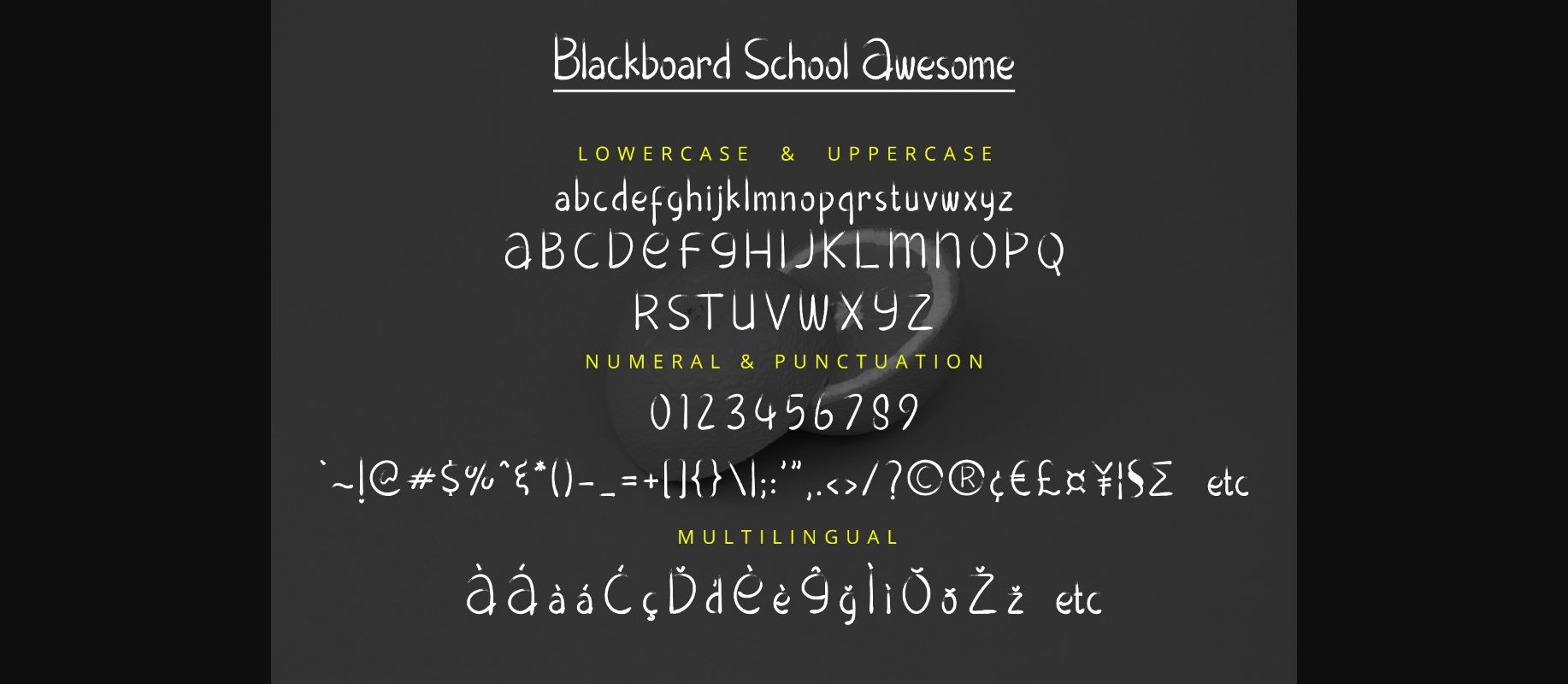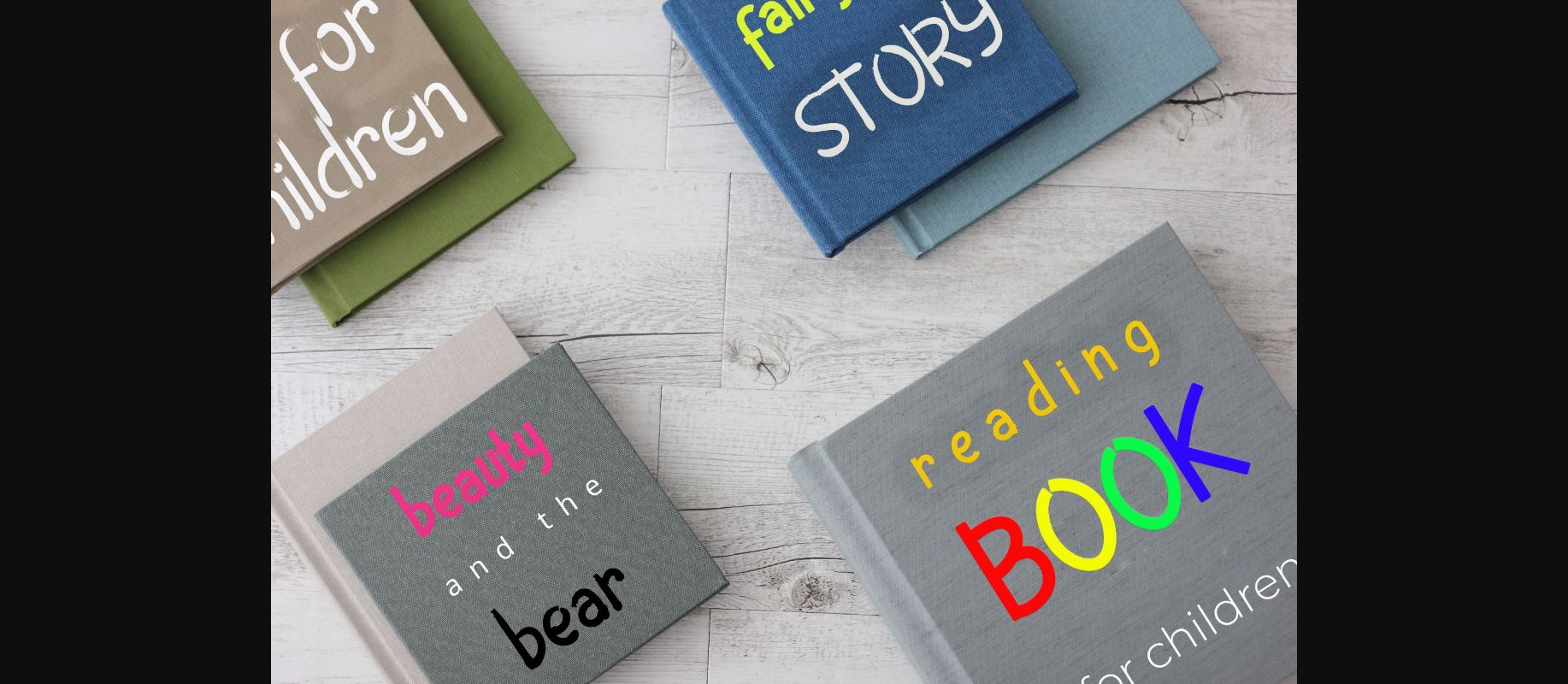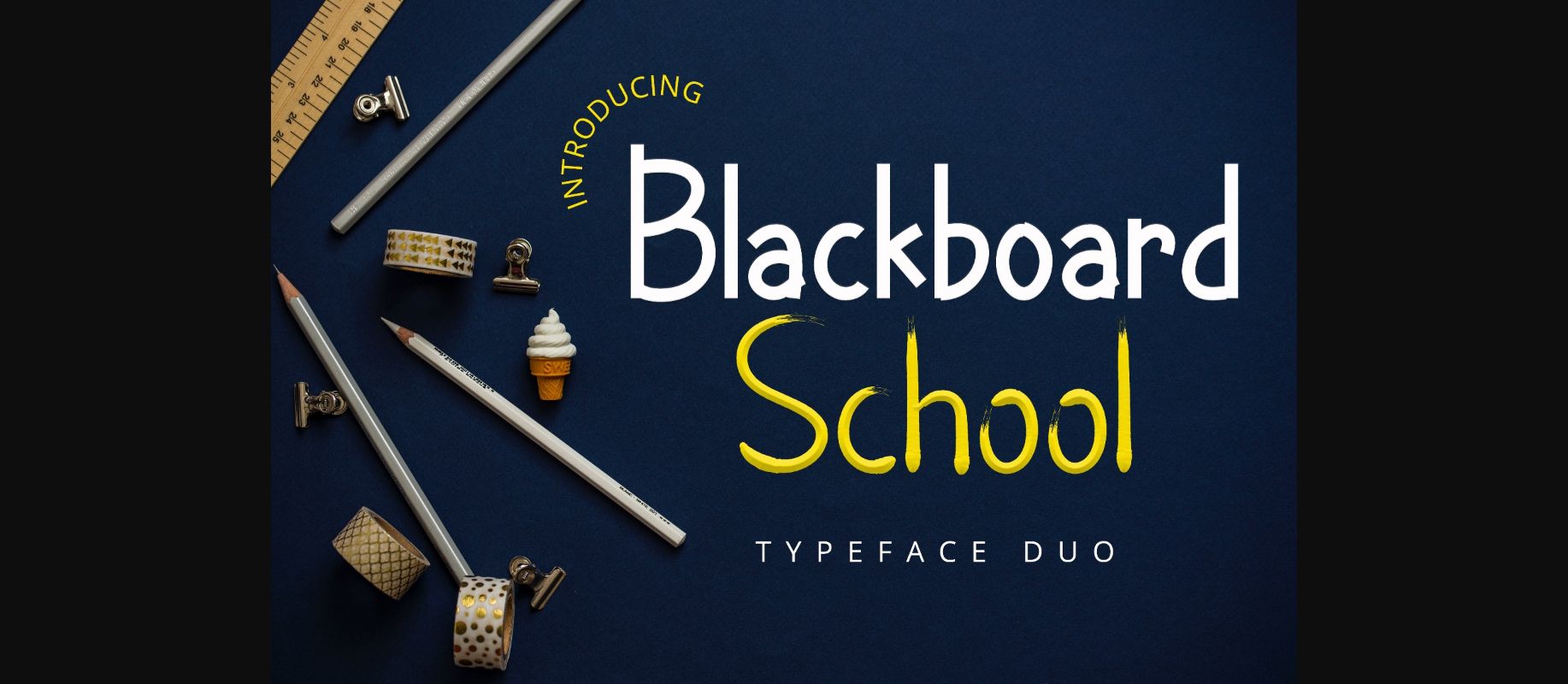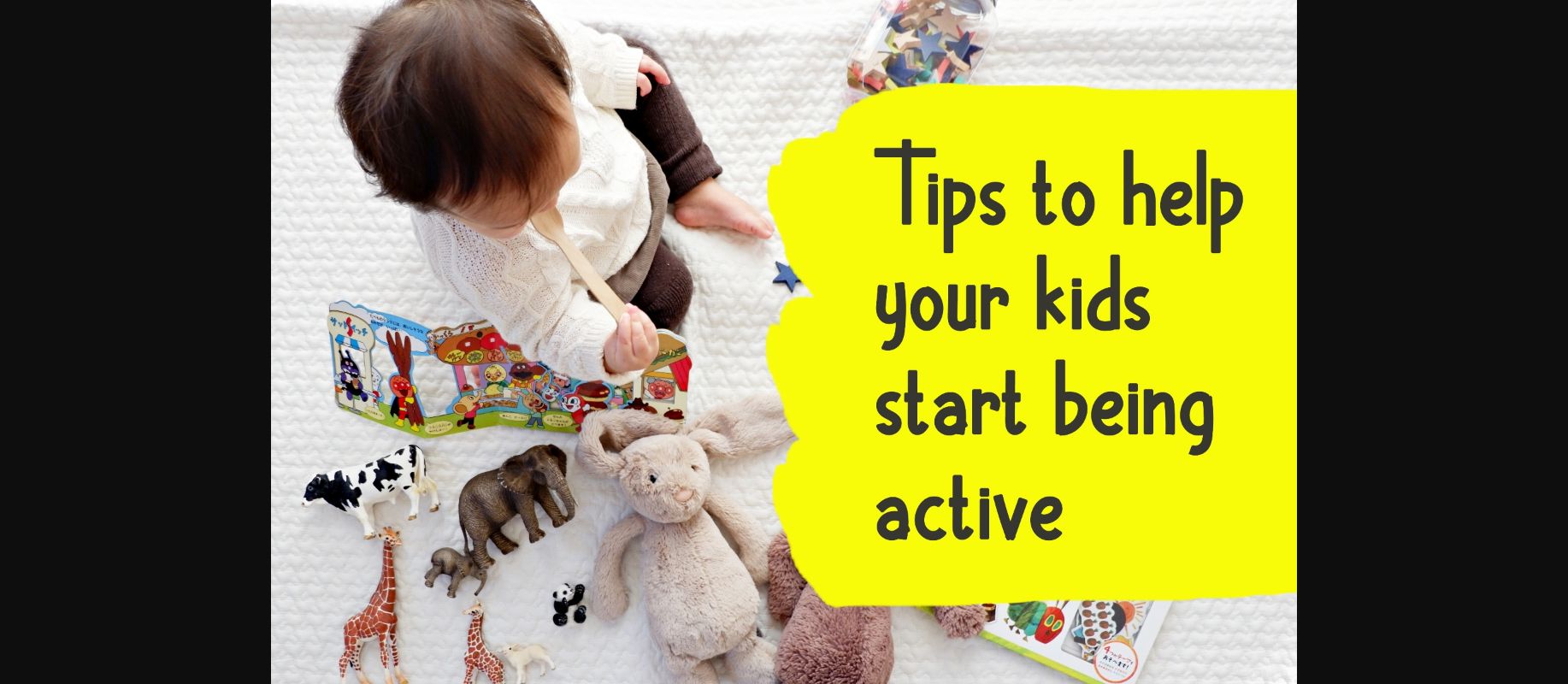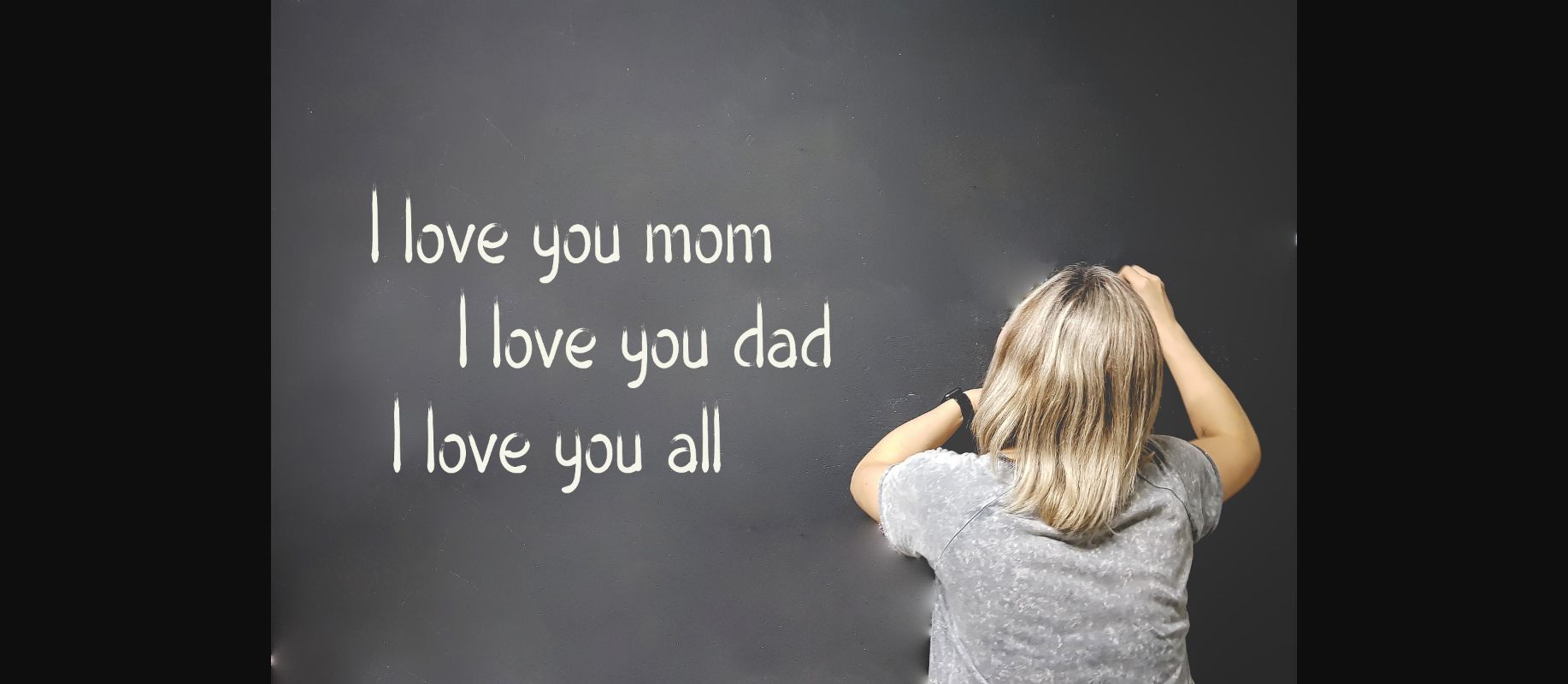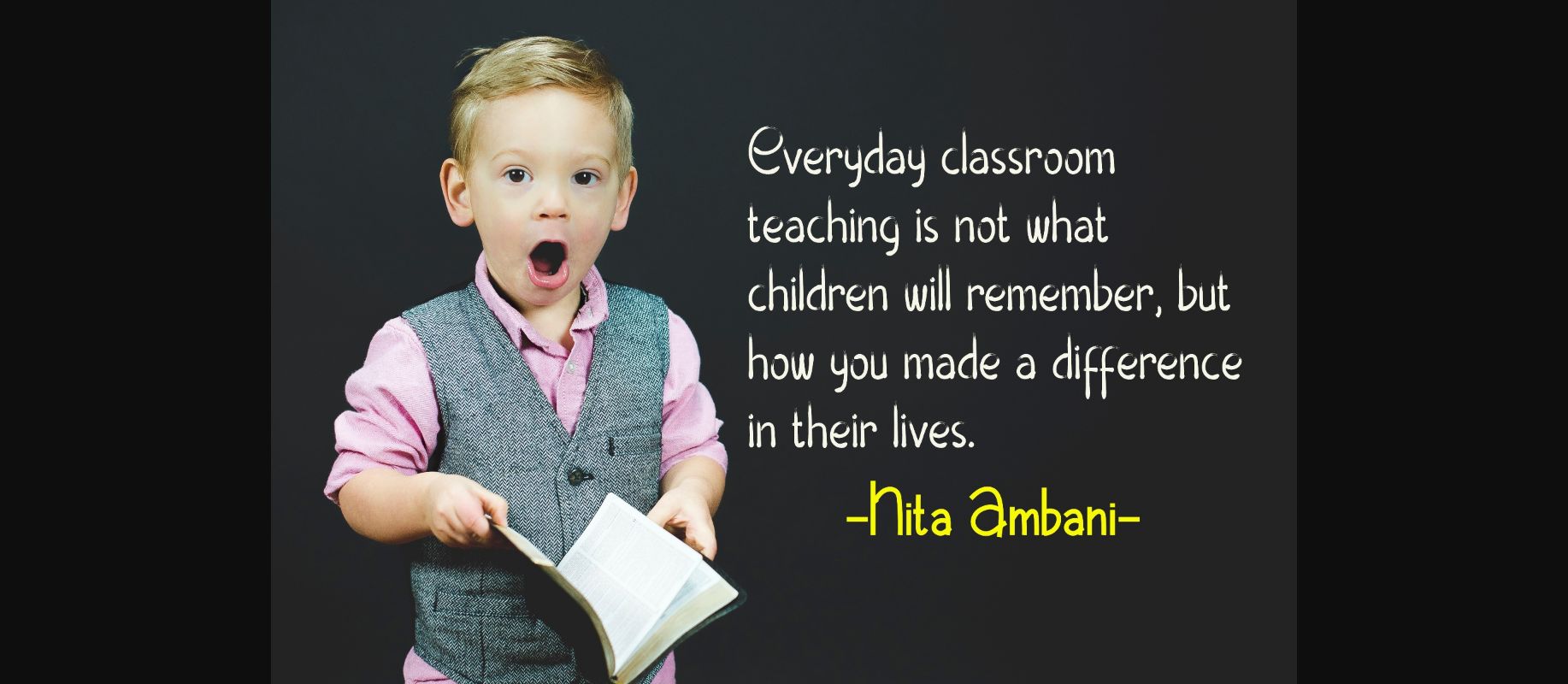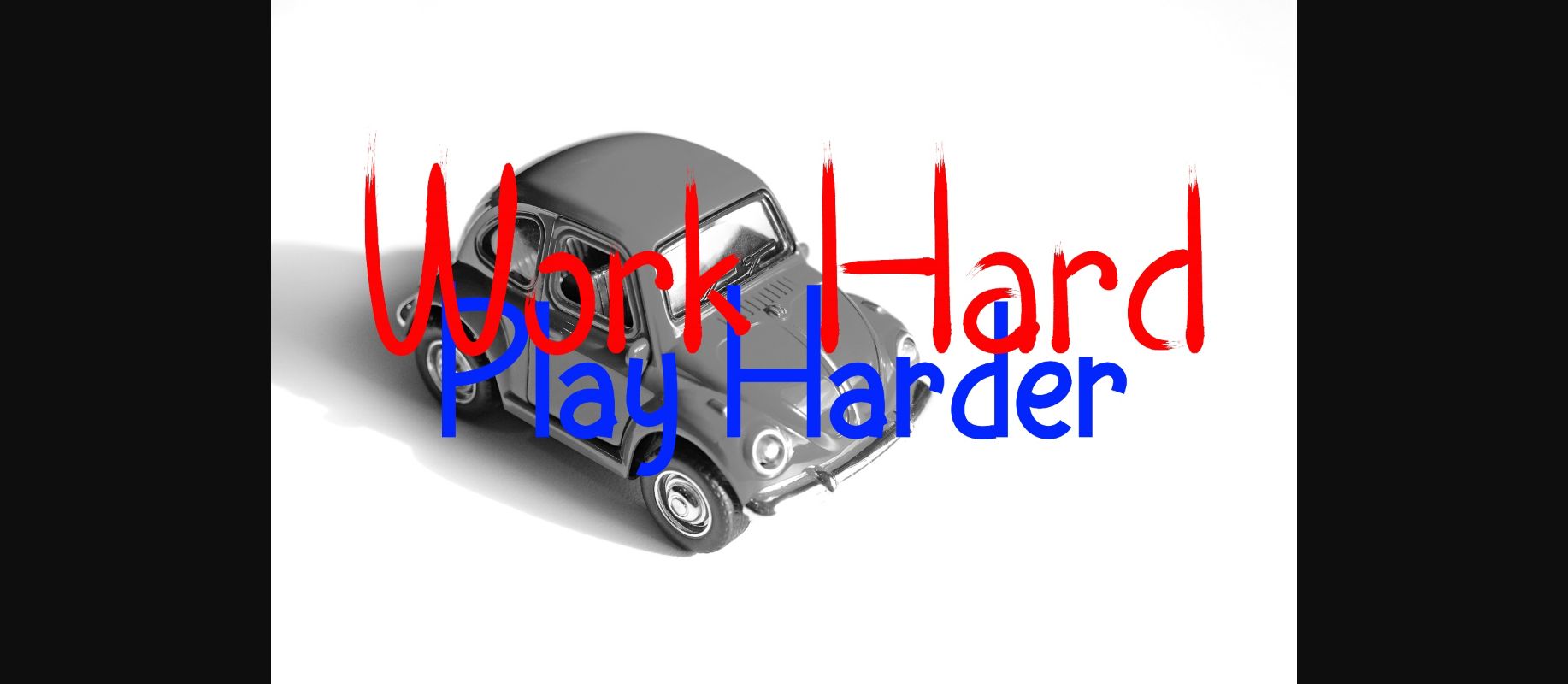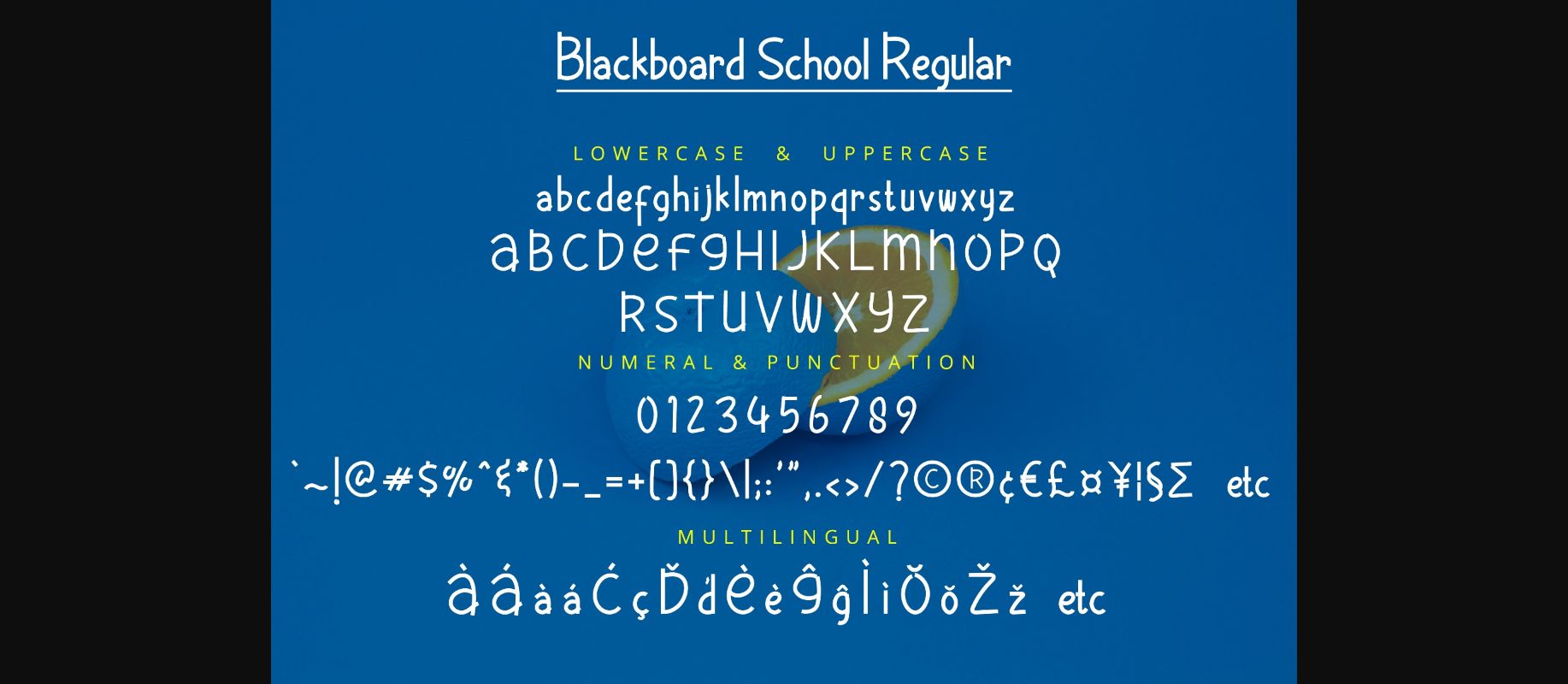
About Blackboard School Font
Blackboard School is a brand new brush font that feels both funny and playful. It comes in 2 versions, regular and awesome.